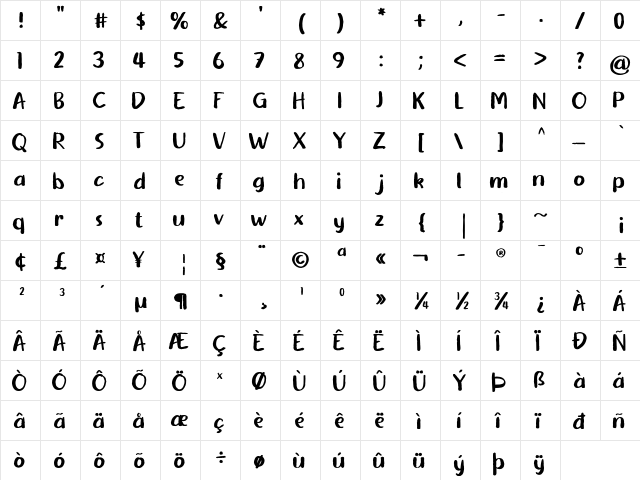
Bread Rough Regular
Design Context for Bread Rough Typeface
Bread Rough trades polish for personality, using distressed and eroded forms to bring grit and attitude to creative work.
A strong fit for alternative music projects, graffiti-adjacent design, and anything that deliberately resists polish.
Pro Tip: Use Bread Rough at larger sizes where the texture and irregularity of each letterform can be clearly seen — it loses its character at small sizes.